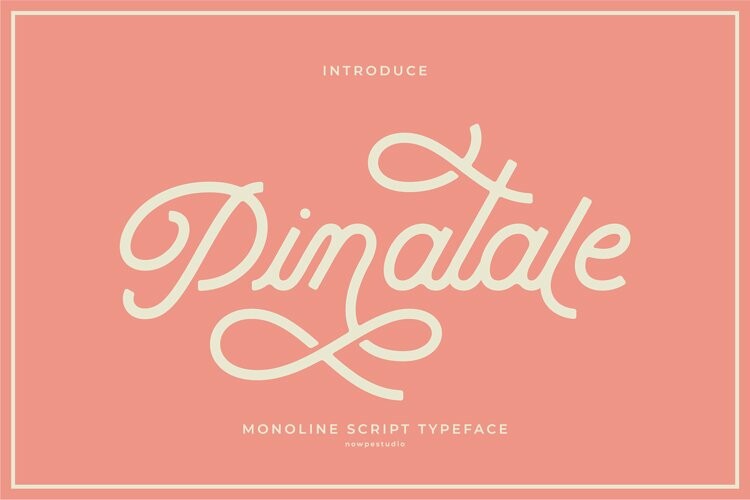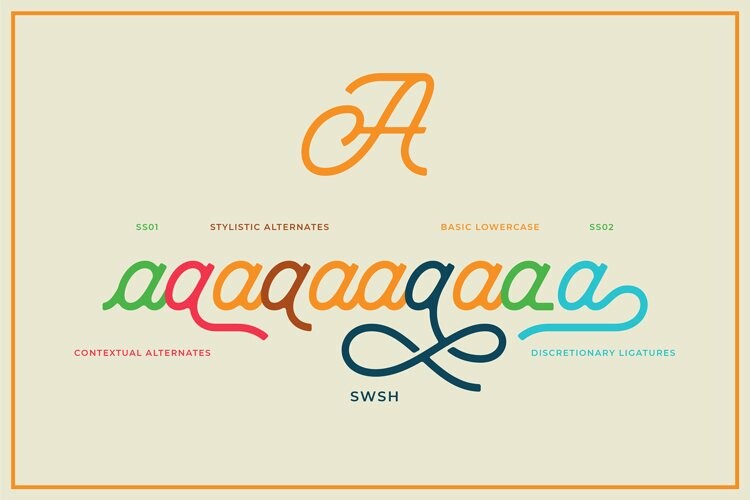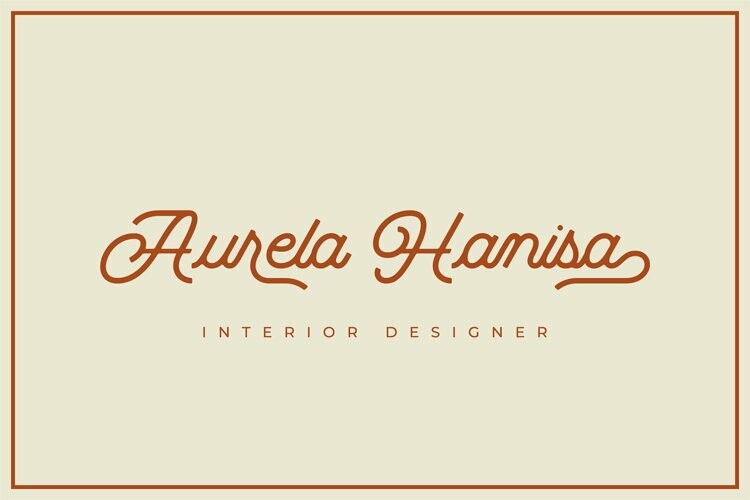
Pinatale Font
Pinatale FontPinatale Script | it’s a monoline script font made with carefully it’s make perfect to create Elegant Design, Modern, Vintage, Retro and more. So Choice any Glyphs and create the awesome typography and design use this.